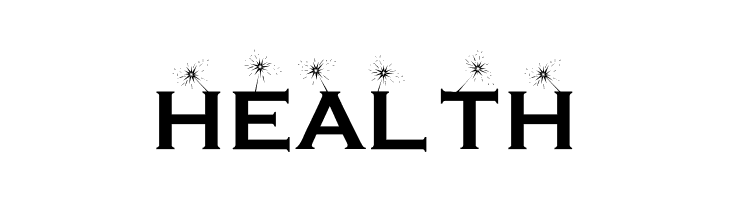
A bold, angular font with a futuristic and edgy design.
A decorative font with star-like embellishments and bold characters.
An ornate, gothic-inspired font with intricate detailing and dramatic flair.
A bold pictogram font of human heads with conceptual icons.
Geometric and hand-drawn bar and line shapes for educational diagrams.
A bold, Gothic-inspired font with sharp serifs and a dramatic style.
A decorative font with intricate, swirling lines and a bold, organic style.